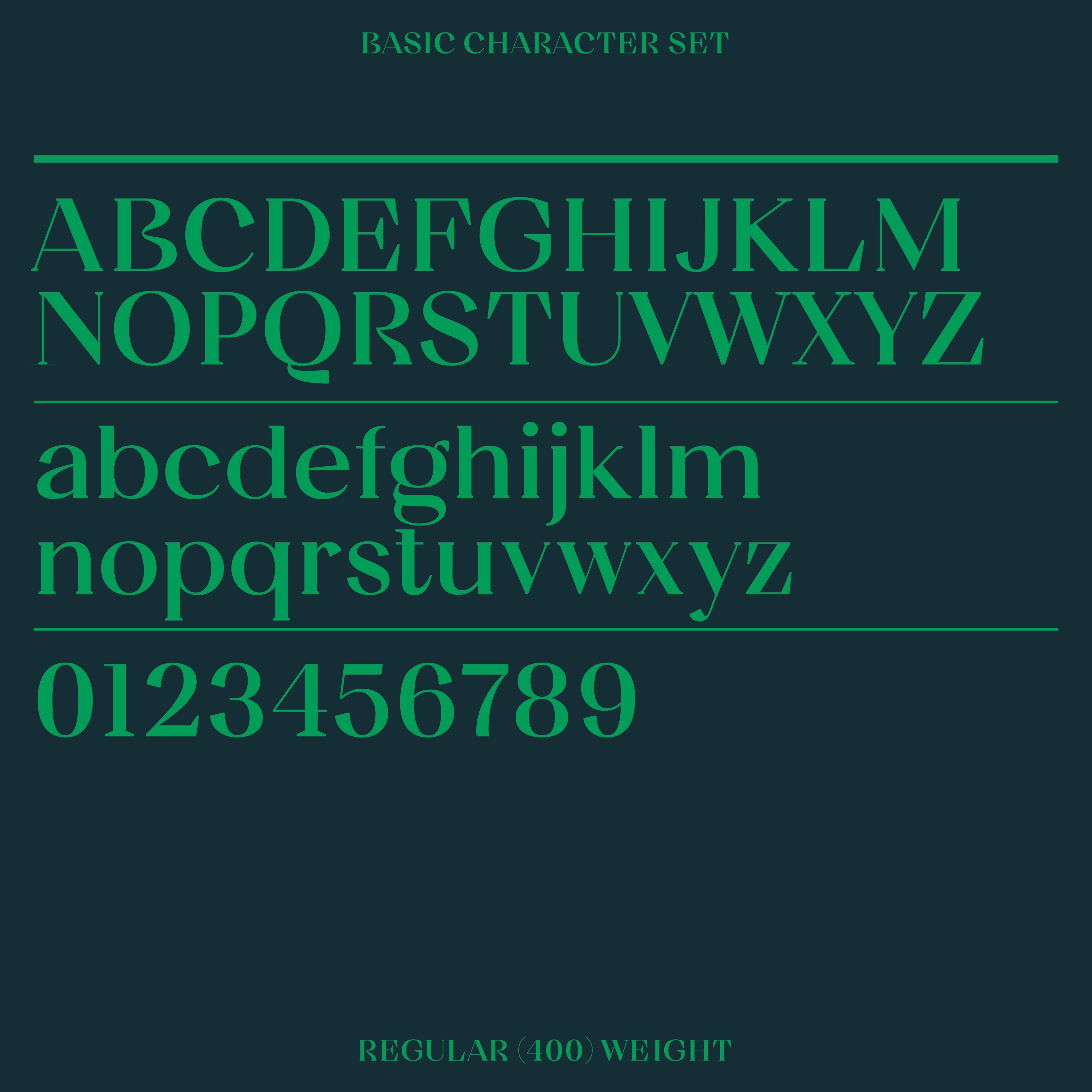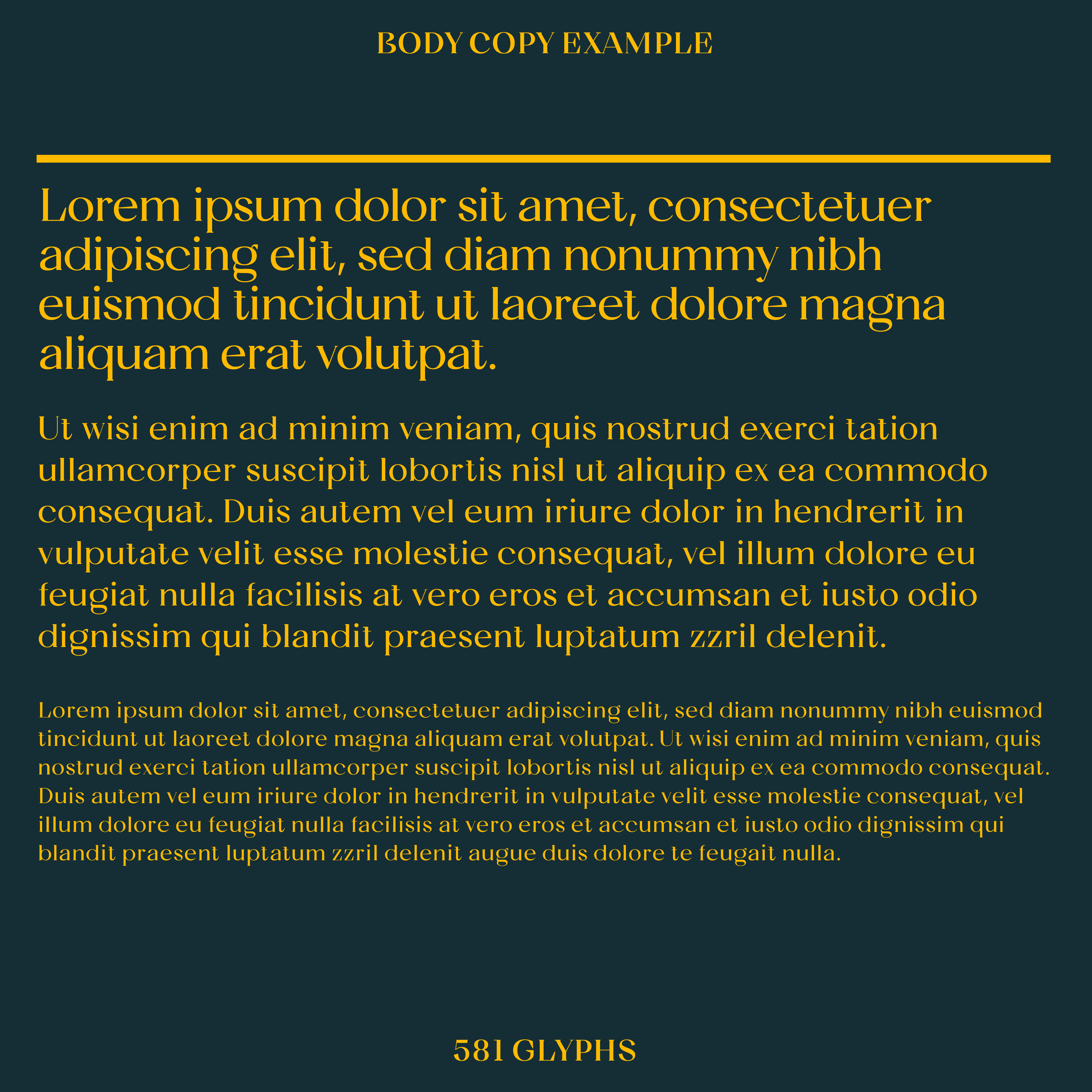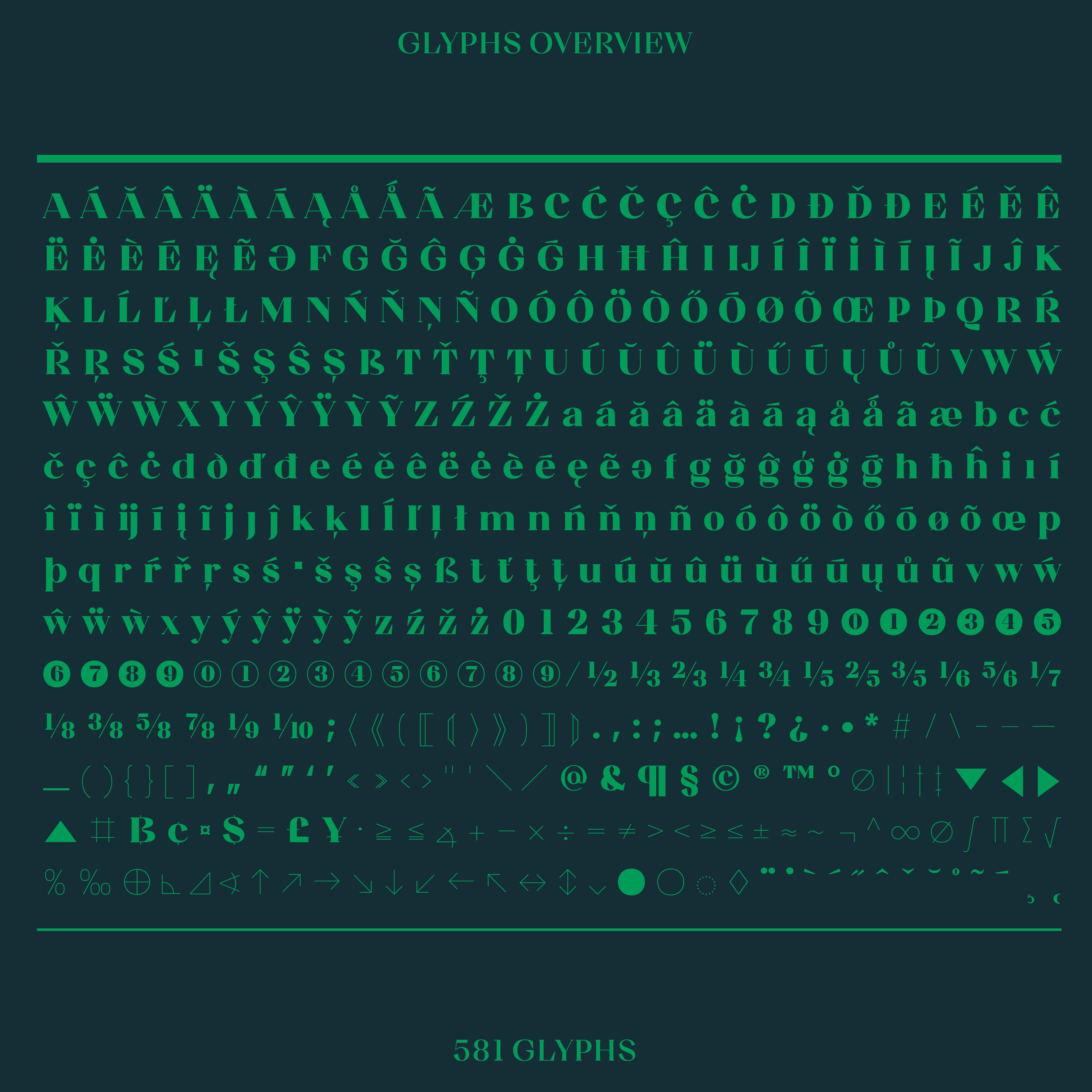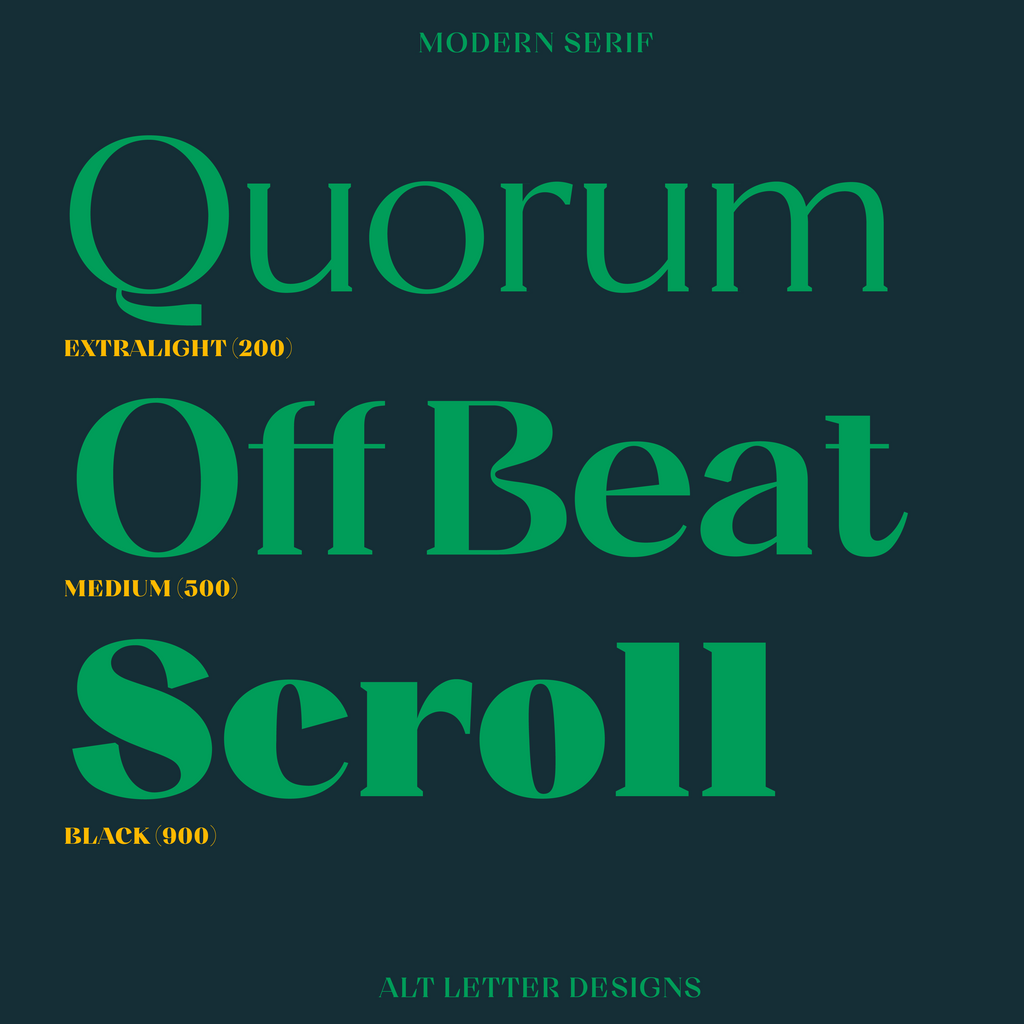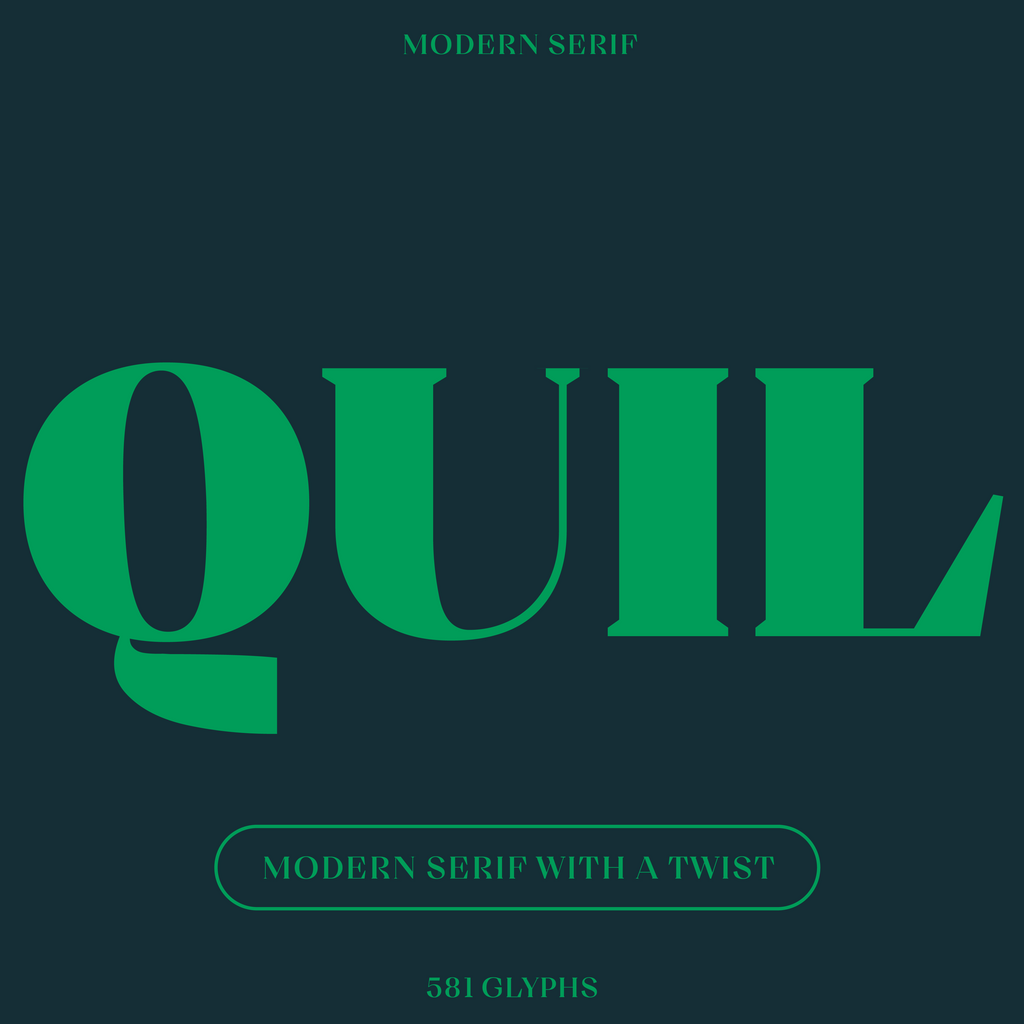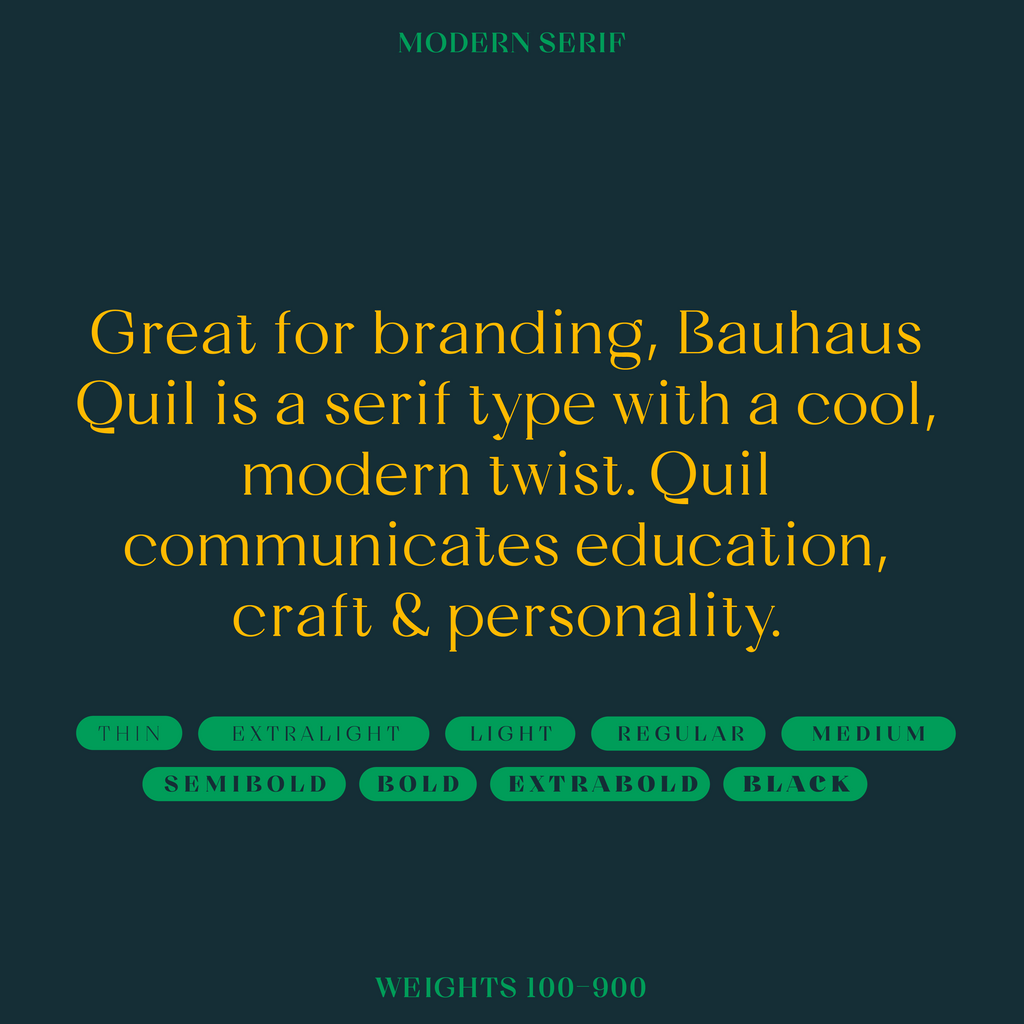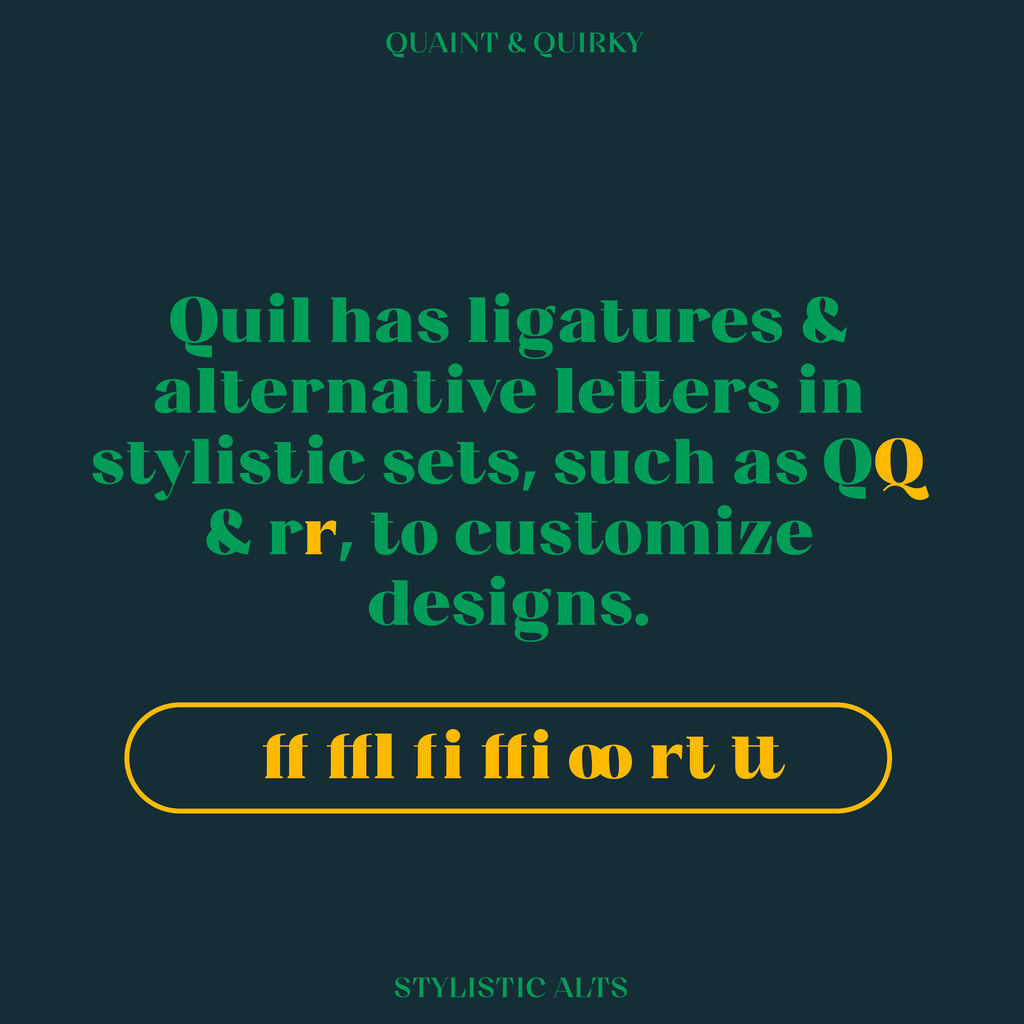
Quil—High Contrast Serif Font, Wedge Serifs
Bauhaus Quil is a serif type with a cool, modern twist. Great for branding. Quil communicates education, craft & personality. Quil has minimal serifs combining elements of quill and woodcut techniques. A slightly left-tilted letter axis gives Quil a contemporary but classic, professional look. Available in 9 weights and as a family.